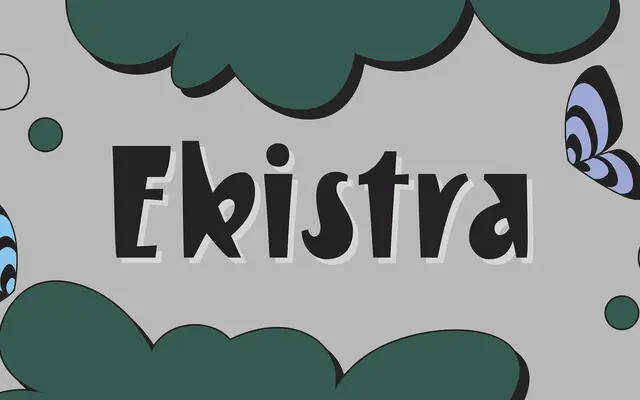
A quirky display sans from Dharma Type aimed at playful, celebratory design work.
Lively and bold in character, Ekistra is built for contexts where personality takes precedence over neutrality. The foundry positions it toward party themes, joyful branding and upbeat graphic work. Details remain sparse, but the tone is squarely decorative rather than functional.
Described as quirky and full of personality, Ekistra is a display-oriented sans aimed at playful, expressive contexts rather than text use, placing it firmly in the display category.